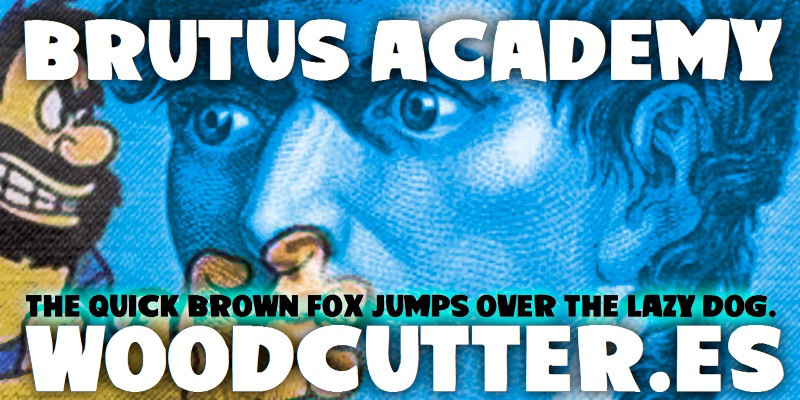
Brutus Academy Font
Brutus Academy Display Font, is a bold and bouncy display font perfect for book covers, children’s books, comics, posters, packaging, merchandise, logo design, and many more. If you are looking for a comic/cartoon font to create something fun and outstanding, Crunch Branch is for you!
Brutus Academy.